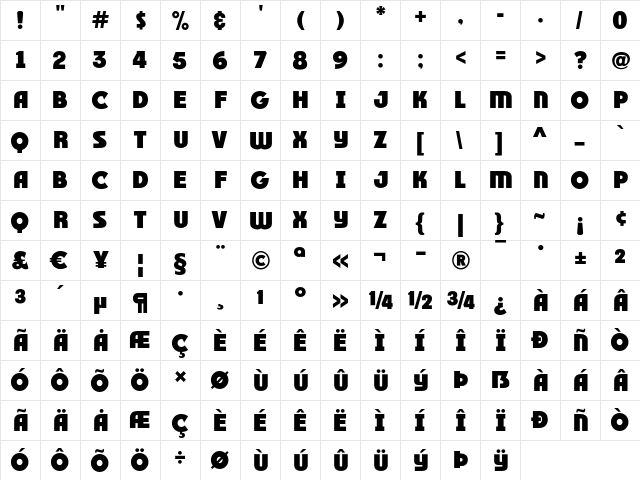
RACE1 Brannt Plus NCV Regular
Design Context for RACE1 Brannt Plus NCV Typeface
RACE1 Brannt Plus NCV offers clean, dependable letterforms without strong stylistic allegiance, making it a practical choice for designers who need flexibility.